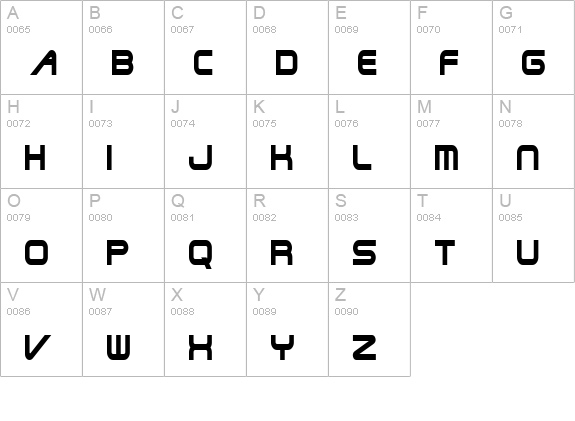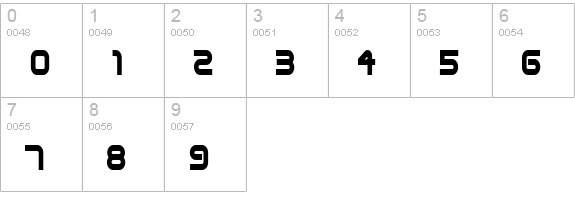
ShuttleCondensed Normal Font Details
ShuttleCondensed Normal is the standard, neutral variant in the ShuttleCondensed typeface family \xE2\x80\x94 well suited to general body text, paragraphs, and standard typographic work.
ShuttleCondensed Normal font is a versatile and elegant typeface that is perfect for various design projects. With its clean and modern lines, this font exudes a sense of professionalism and sophistication. Whether you are creating a logo, designing a website, or working on a print project, ShuttleCondensed Normal font will add a touch of class to your work. One of the best features of ShuttleCondensed Normal font is that it is available for free. Yes, you read that right! This incredible font can be downloaded for free at FontsMarket.com. This means that you can enhance your design projects without having to spend a dime. With its high-quality design and exceptional legibility, ShuttleCondensed Normal font offers incredible value to designers and creatives alike. Not only is ShuttleCondensed Normal font free, but it is also incredibly easy to use. Its wide range of characters and glyphs ensures that you have all the tools you need to bring your creative vision to life. Whether you need to emphasize a headline, create captivating typography, or add a stylish touch to your designs, ShuttleCondensed Normal font has got you covered. Furthermore, ShuttleCondensed Normal font is compatible with various design software and platforms, making it incredibly versatile and accessible. Whether you are a beginner or a seasoned professional, you can easily integrate this font into your design workflow without any hassle. So why wait? Enhance your design projects today with ShuttleCondensed Normal font, freely available for download at FontsMarket.com. Unleash your creativity and take your designs to new heights with this exceptional typeface.